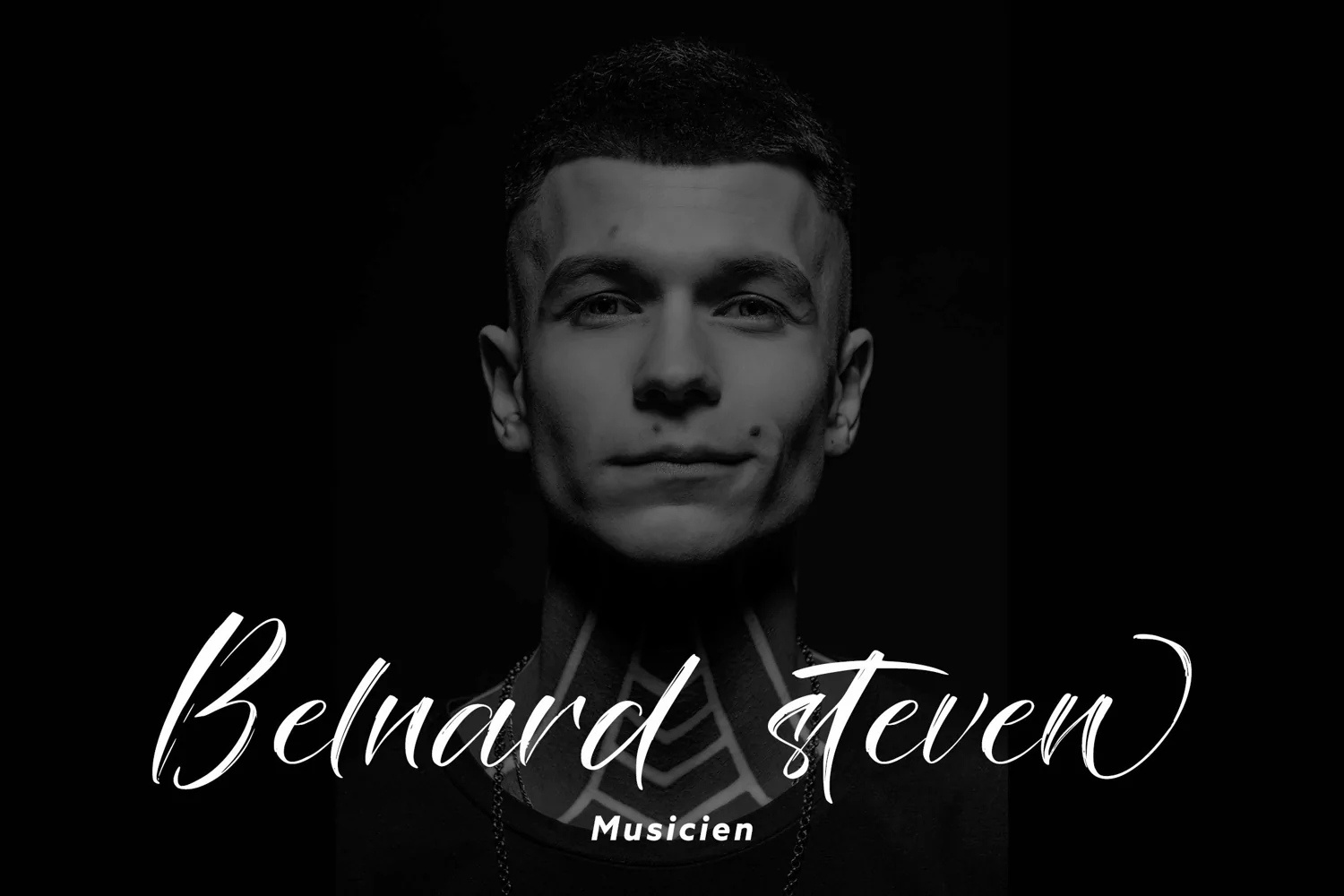
Savage Brush is a strikingly versatile and charming brush script font, hand-brushed with care. a contemporary approach to design, handmade natural, suitable for use in title design such as clothing, invitations, book titles, stationery designs, quotes, branding, logos, greeting cards, T-shirts, packaging designs, posters, also already PUA encodedWhat is include :